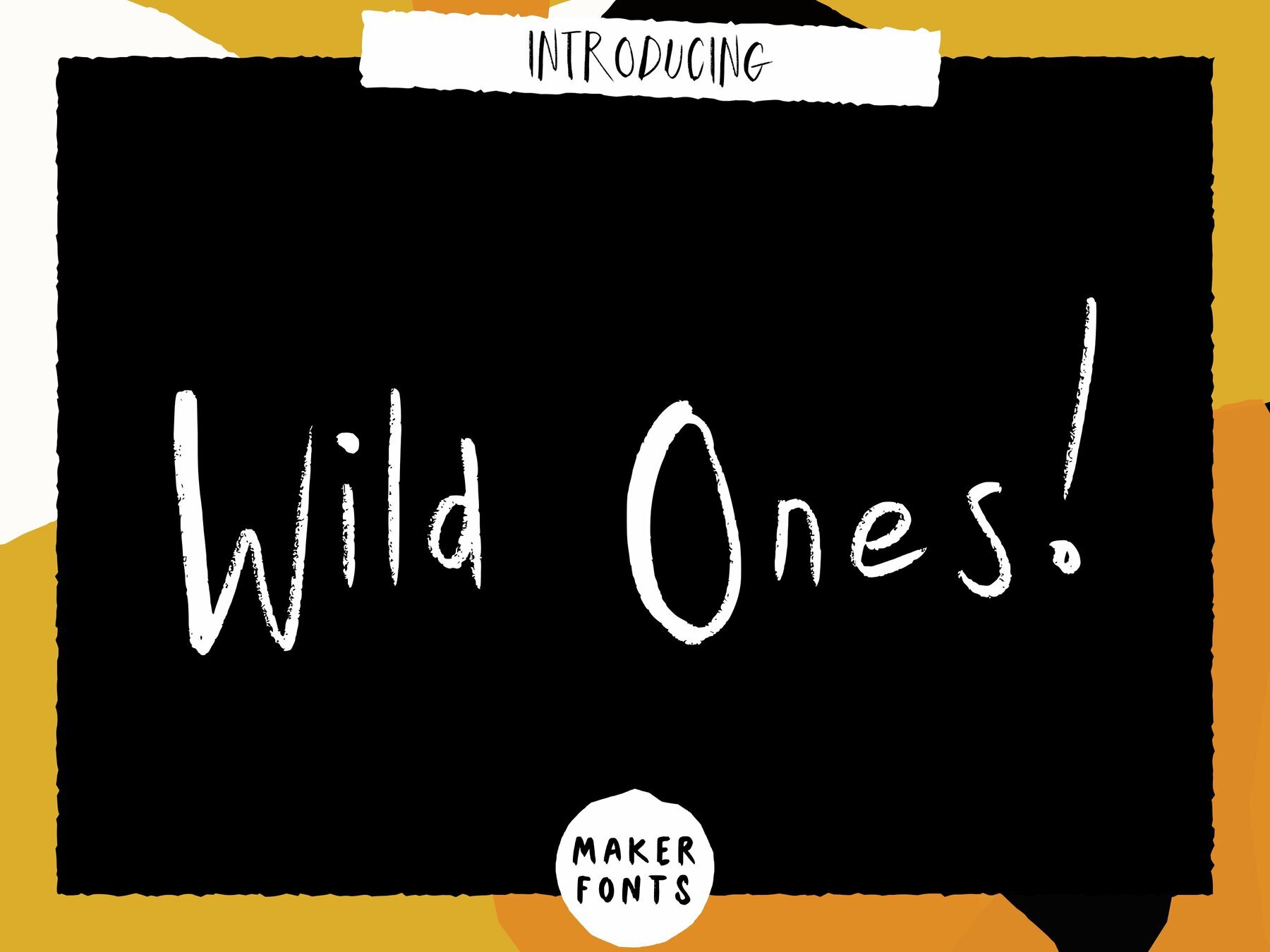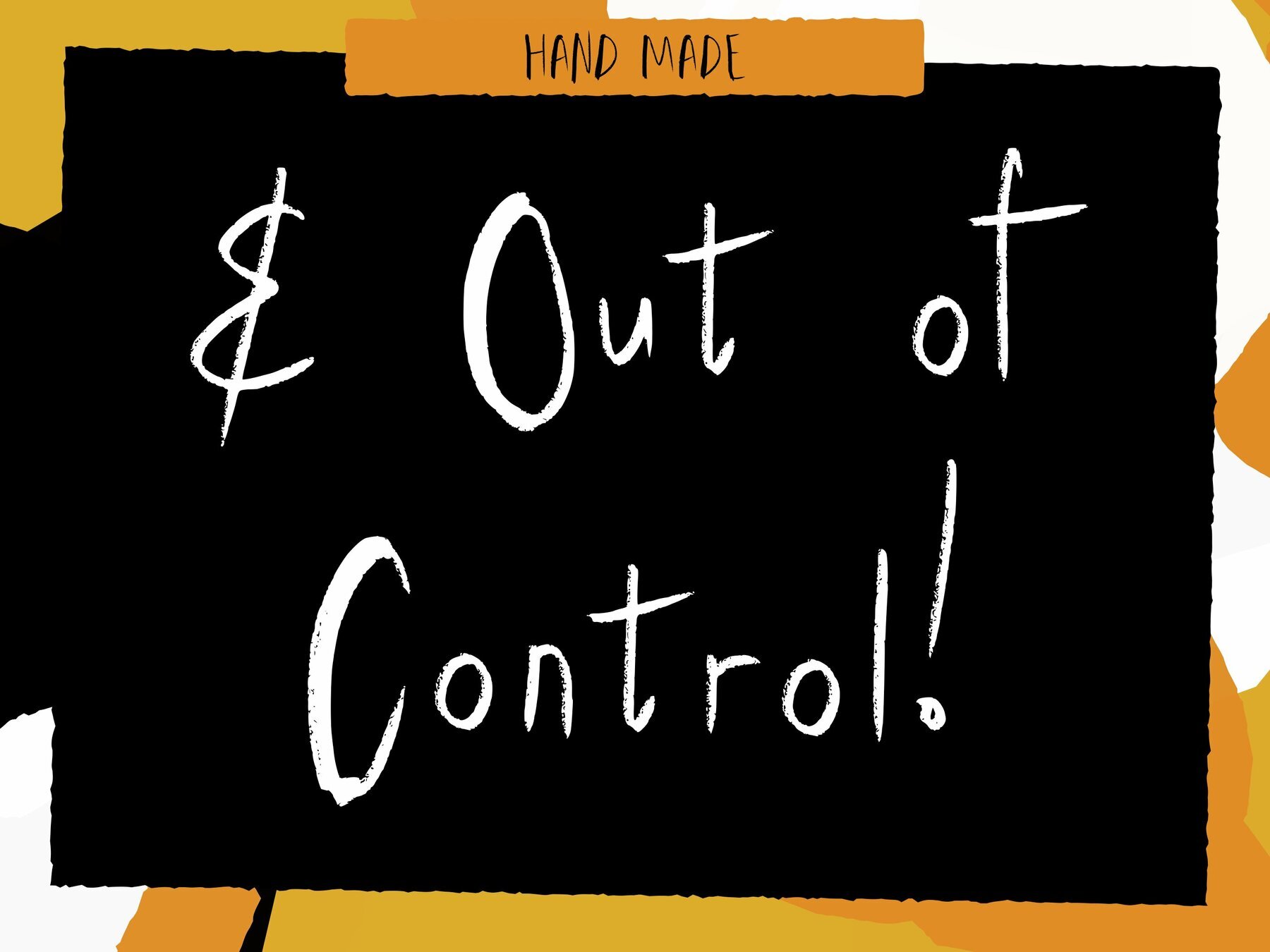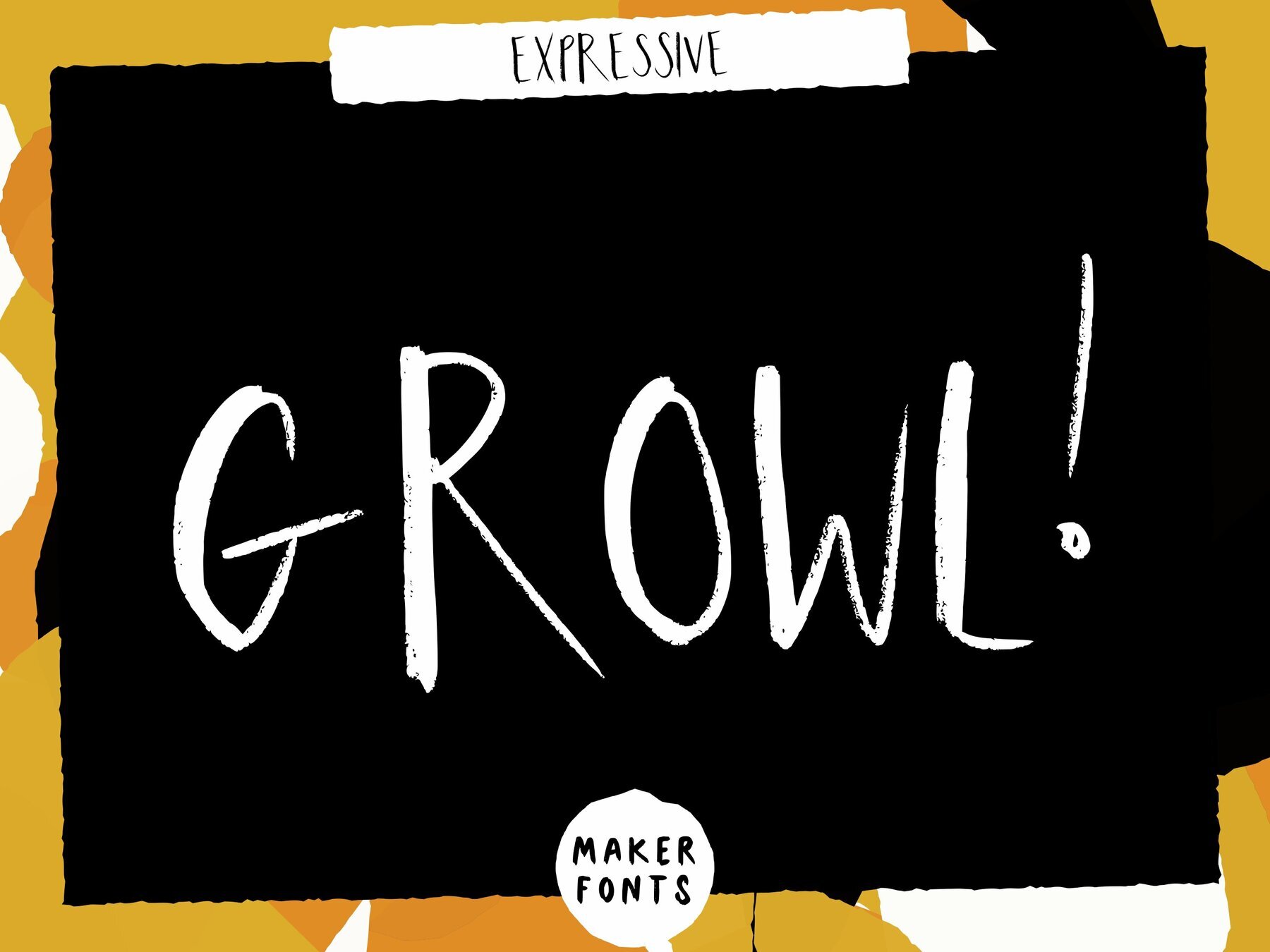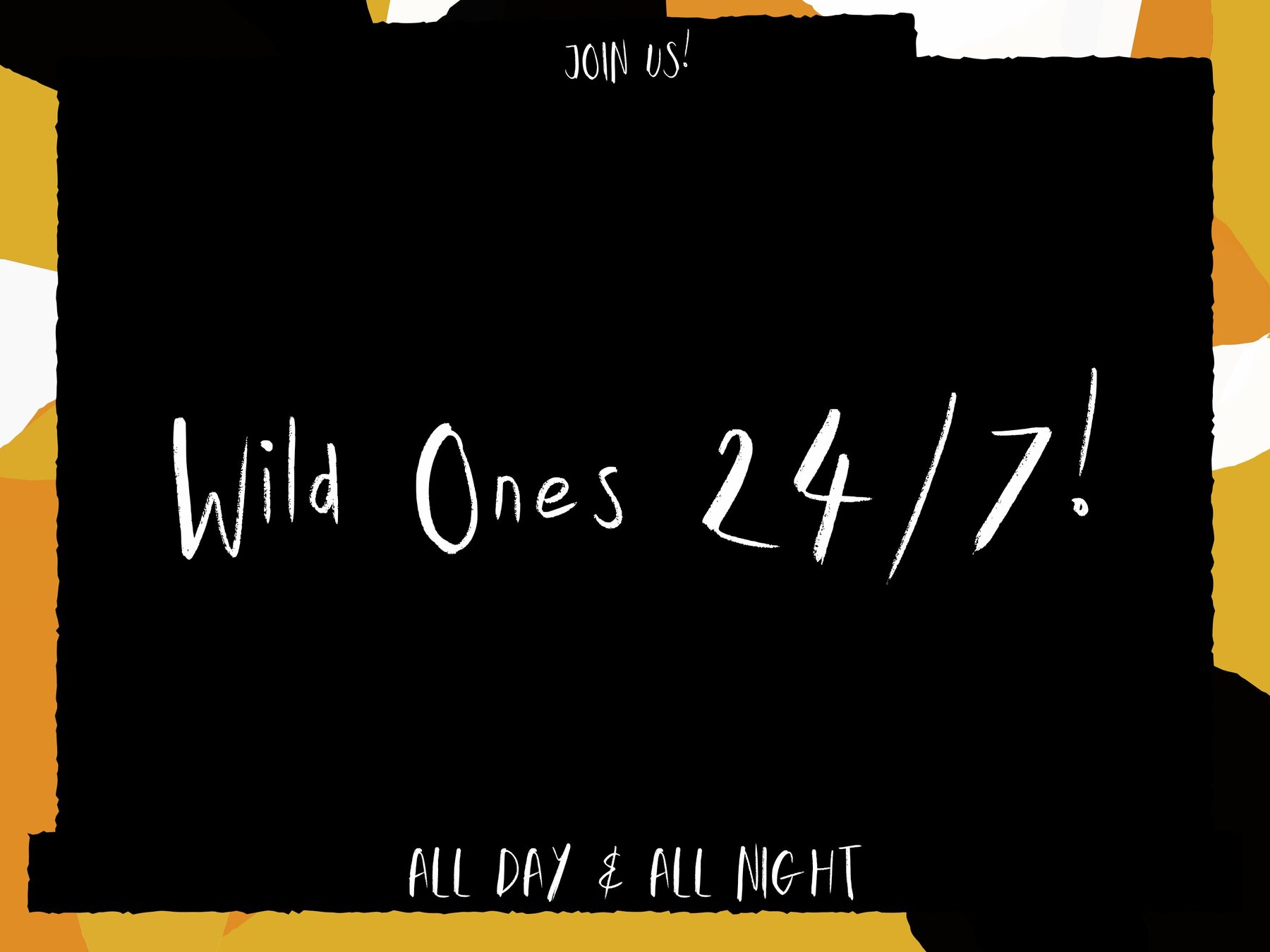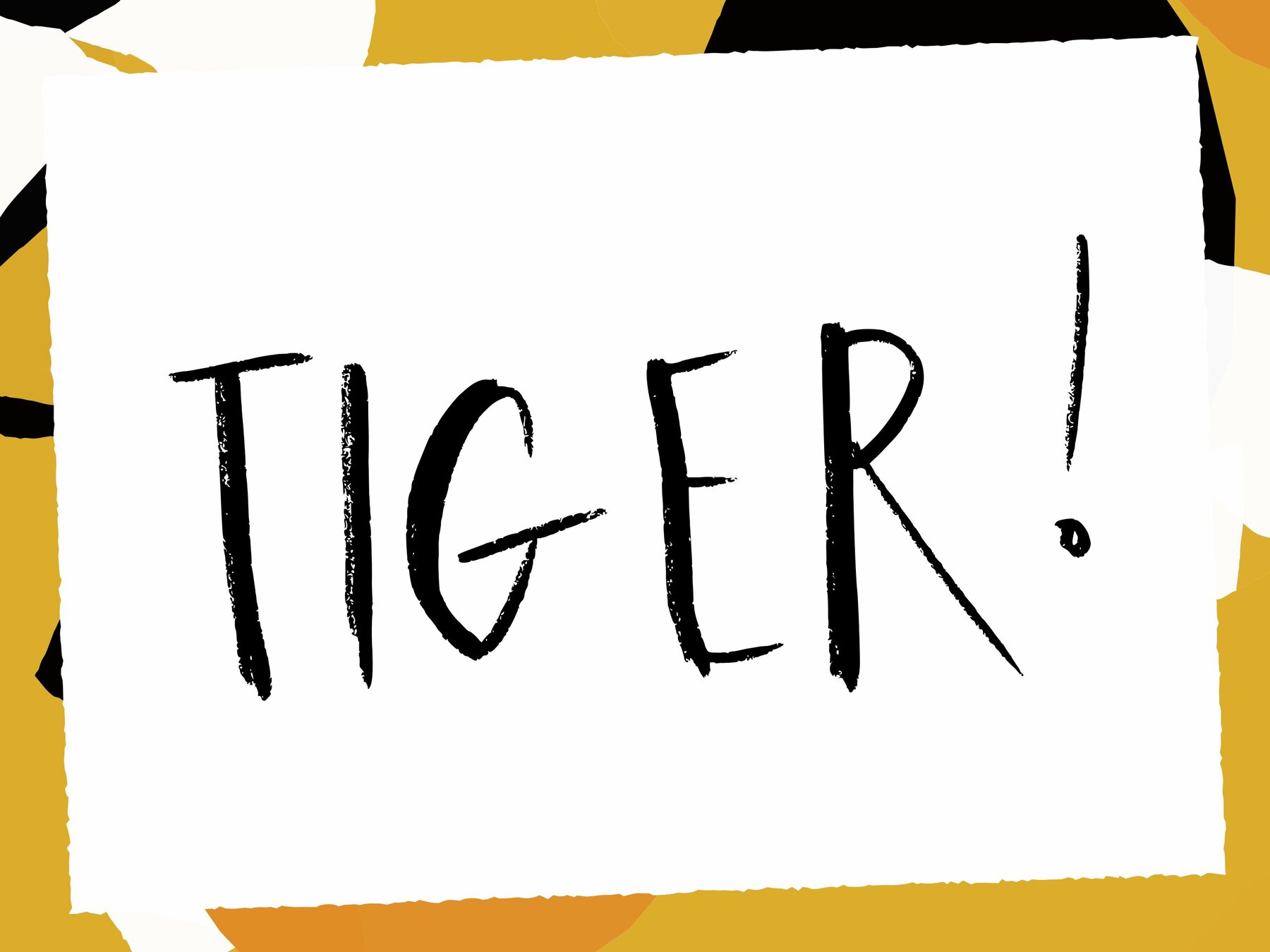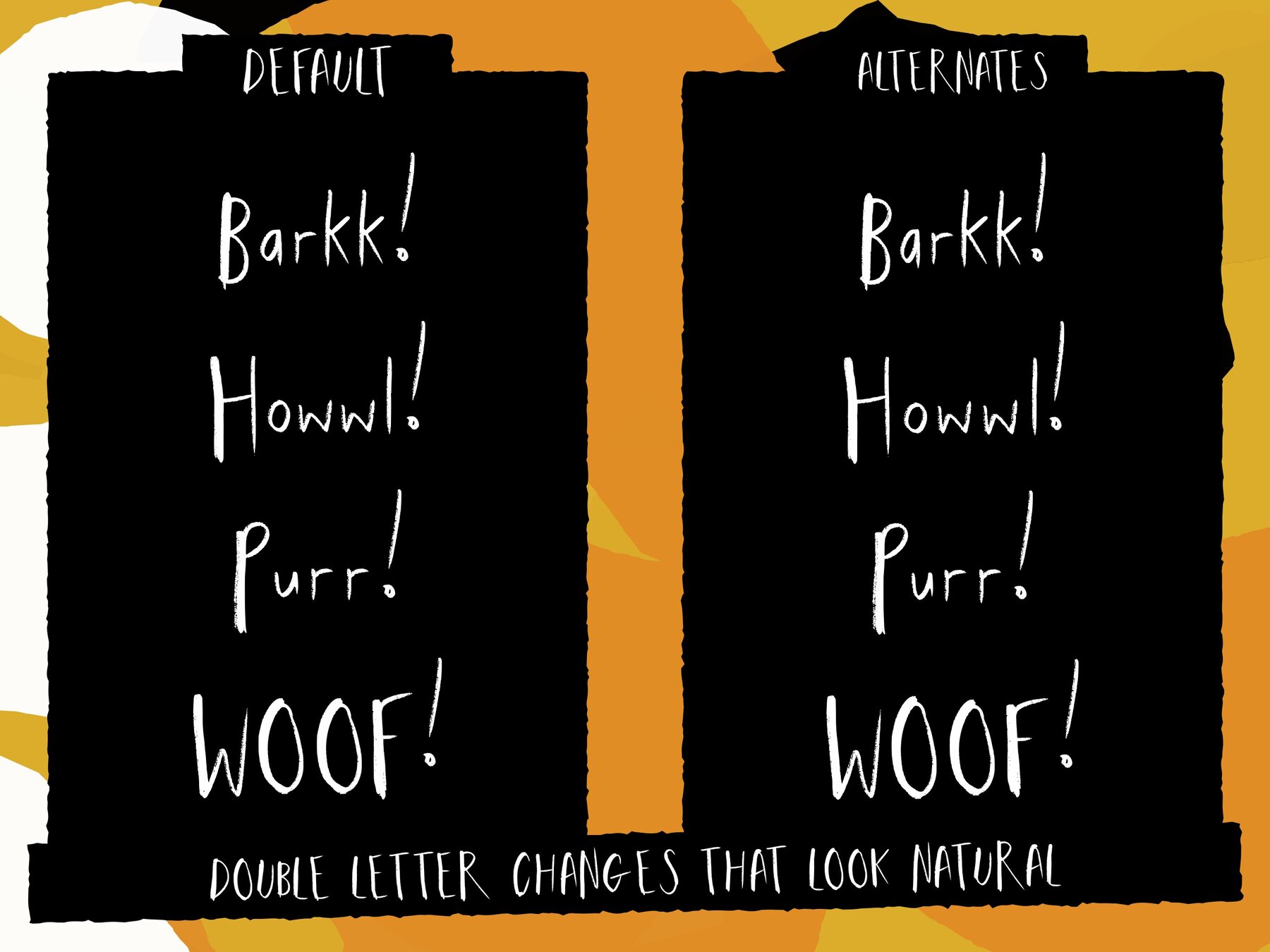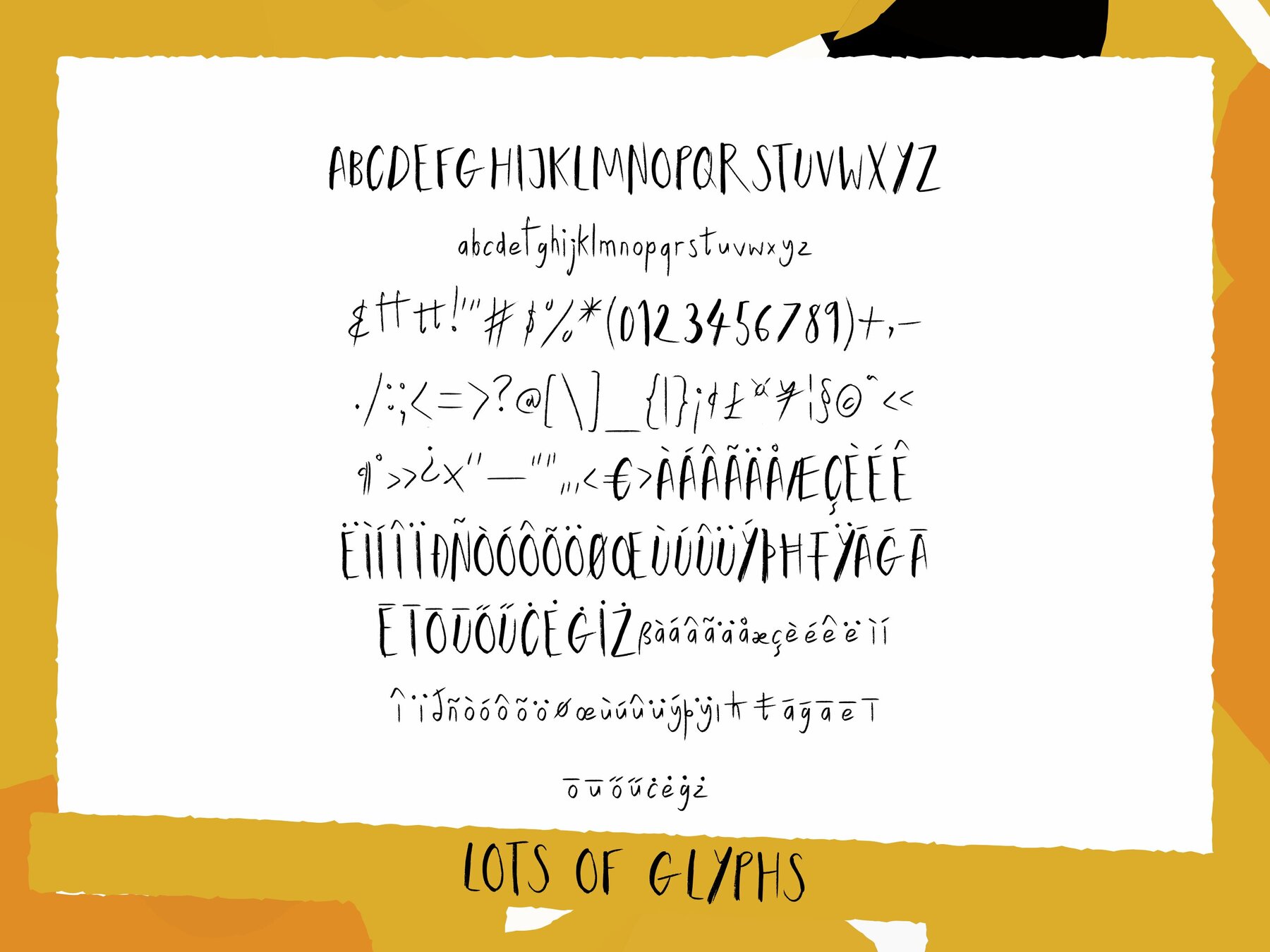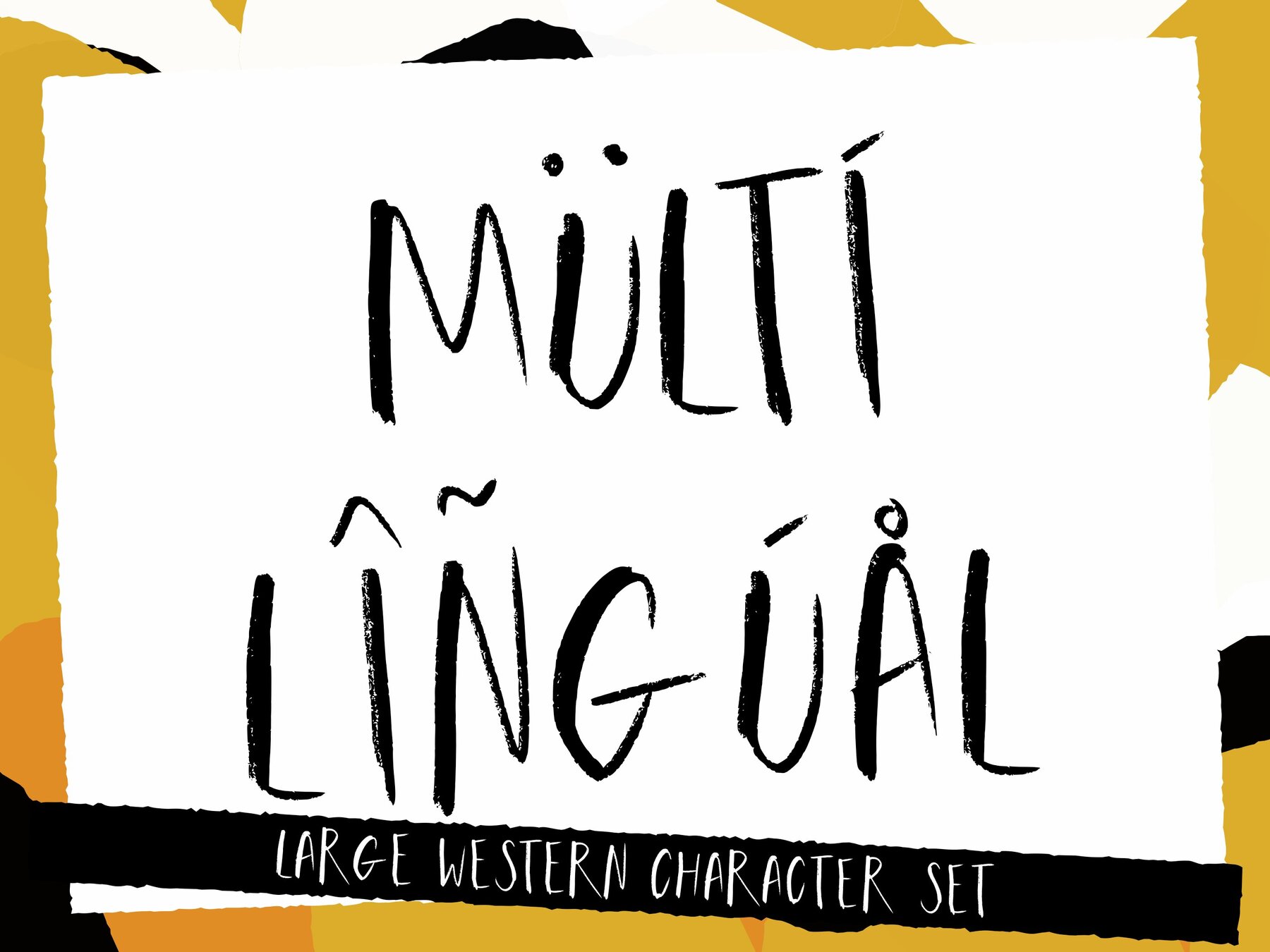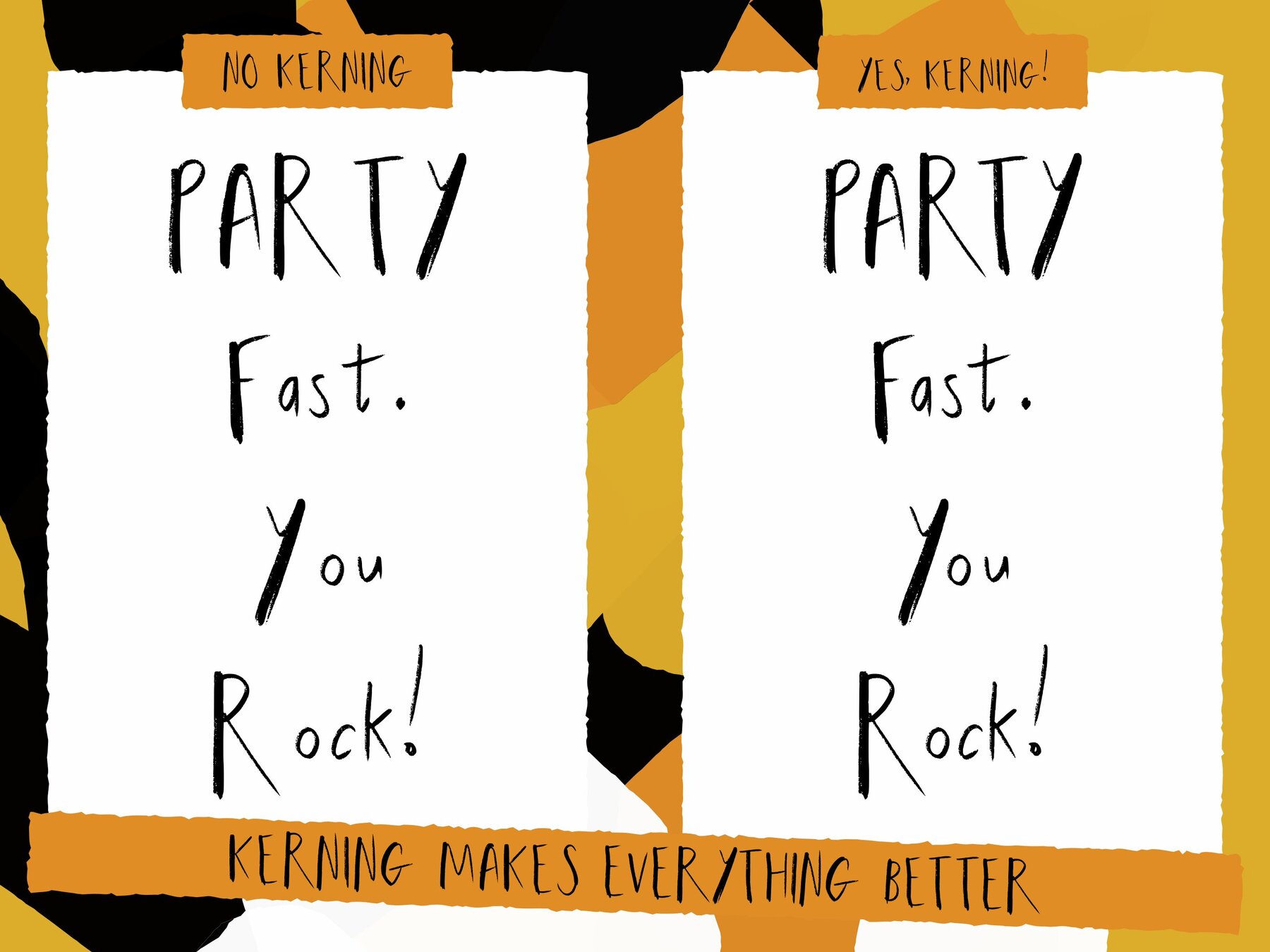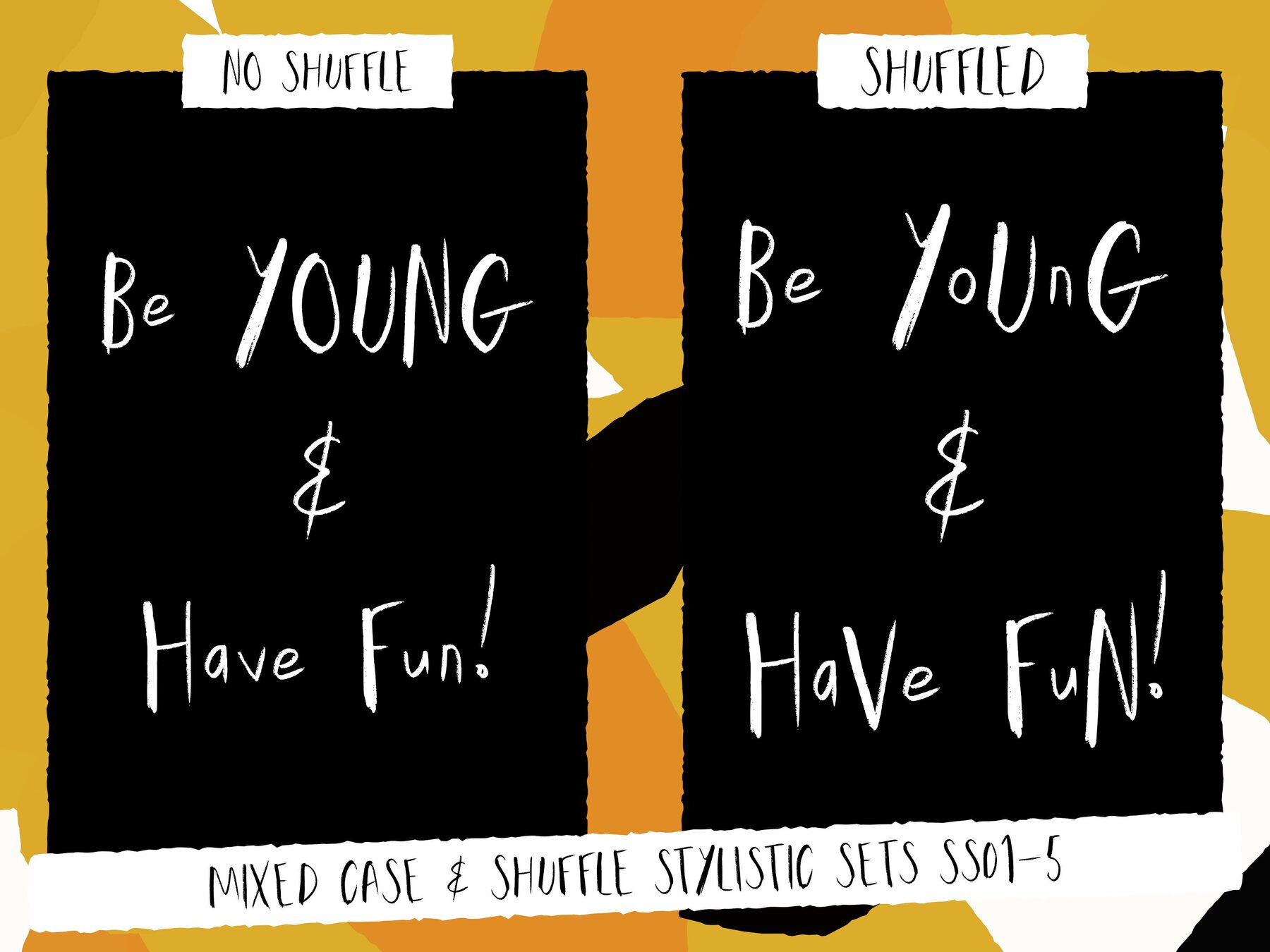
Wild Ones Font
MF Wild Ones Regular
MF Wild Ones is a new expressive handmade font from Maker Fonts. Perfect for greetings cards, packaging, and any use where a bold yet personal touch is needed. Let MF Wild Ones bring a wild and expressive flavour to your next project! The font comes with a large western character set and lots of glyphs. Opentype features include: Ligatures, Contextual Alternates, and Stylistic Sets (ss01-ss05) that all combine to create a natural handwritten texture.